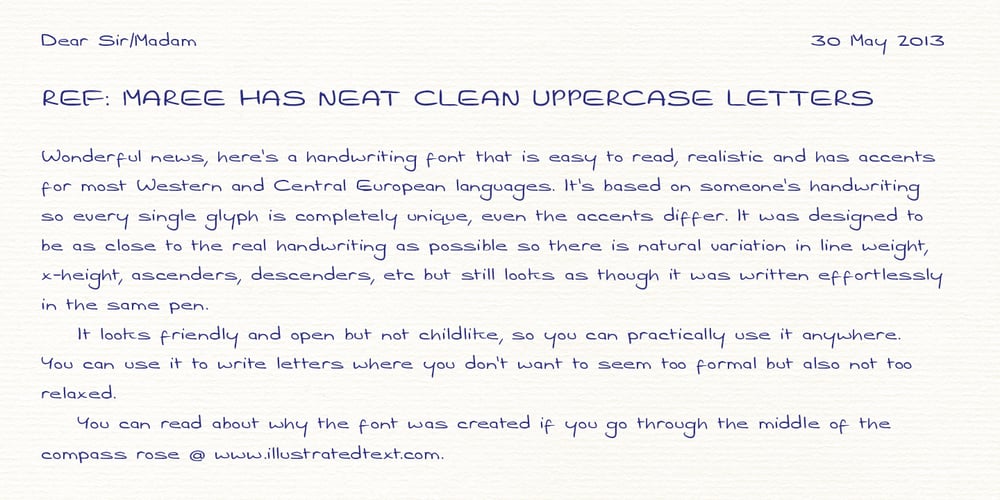
Maree Font Family was designed by Andrew Ashton and published by Ashton. Maree contains 1 styles and family package options. If you want to write something sincere and genuine but not too formal then this is the font for you. It is based on real handwriting, not some artificial calligraphy made to be either too haphazard or spiky or have loads of elegant flourishes but an ordinary person’s writing, and designed to look as natural and as close to the original lettering as possible. Like any person’s writing it is individual and distinctive, but so easy going on the eye those differences sit comfortably with you. It is friendly and open with easy to read glyphs both as lowercase and uppercase. The letters are relatively wide with clearly shaped distinct outlines. This font may be ideal for projects where you expect a wide readership with different reading abilities from young to old. When you are using this font a slightly bigger point size usually gives a better result so for a standard letter or similar you should size up to 15 points or more. Maree has been individually crafted to the smallest detail. To create a realistic handwriting font that looks relatively simple but works in a wide variety of languages requires a complexity and attention to detail most fonts will never require. This font in any ordinary business environment would never have been made, the effort required to make it too great, the length of time too long. There have been no shortcuts in this font, no automatic scanning or tracing, no automatic generation, no class kerning. Not only is each glyph individual but the width of letters, the height, the accents and the positions of the accents are all different. Even the line weight of the letters is designed to have natural variation but yet similar enough that the font appears as though it were written effortlessly in the same pen. And in order to keep the spacing consistent even though the letters have different widths, heights, lengths of descenders and so on, there are a vast number of kerning pairs, letter to letter, number to number, letter to number… All kerning has been individually assessed with an eye to proportionality taking in character shape, size and weight. For instance if you write a telephone number the numbers all sit close together but if you write a number before a letter such as in a UK post code or before a unit of measurement an extra little bit of space has been added which makes the number more distinct and therefore readable. That space is so natural to the eye that you don’t even know it is there. However even in the spacing allowance has been made for the fact it can’t be too perfect because when you write by hand the spacing is inconsistent. There have to be some letters which are too close or far apart otherwise the font would look artificial. For similar reasons if you are going to print out this font for a letter, etc, check the print version before you make any letter spacing changes because with the zoom functions in modern applications that uneven spacing and lettering can seem more pronounced than it actually is. When this font is printed out you will find it is surprisingly neat. This font is what it is, simple clear handwriting. You will not go wow. But if you want something unique and different and looks good on the page you won’t be disappointed. This font is not a work of art but it is a work of love. This font has a soul. How many fonts can you say that about?